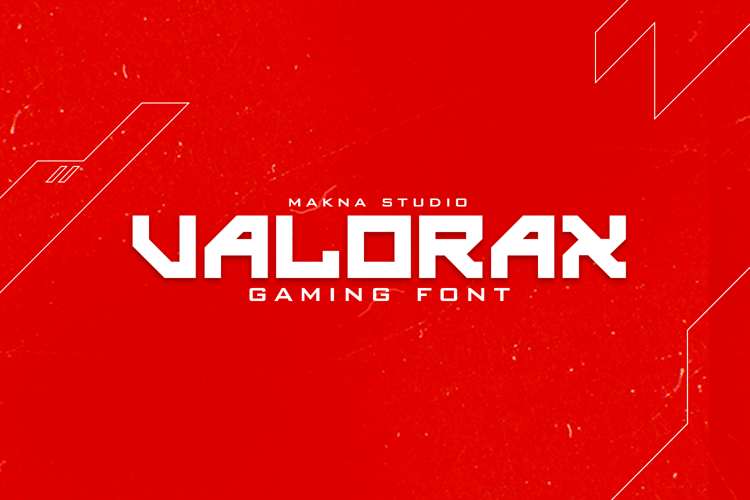
valorax Font
valorax Font is a Cyberpunk font and was created on . Since then, it has been downloaded 58,464 times and added to 606 collections. 33 people have liked valorax Font and given it a thumbs up.
I like the simple futuristic vibe. Overall great!